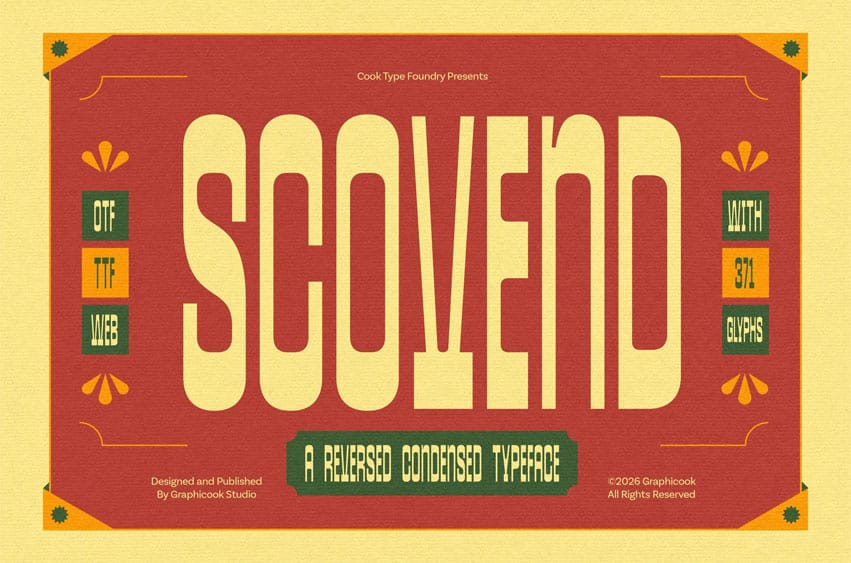
Scovend Font is a reverse-contrast condensed font inspired by Mexican design, featuring tall, bold letterforms with distinctive shape variations. Ideal for headlines, posters, branding, and cultural or artistic visual projects.
It is perfect for headlines, logotypes, magazines, packaging, quotes, movies, games, cover albums, book covers, and flyers, it’s a perfect solution for creating eye-catching designs that stand out in any context.